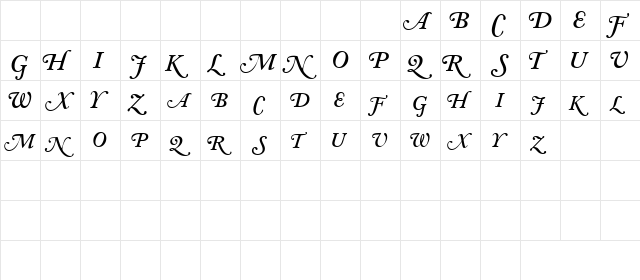
CaslonSwashSCapsSSK SemiBoldItalic Font Preview
CaslonSwashSCapsSSK SemiBoldItalic
Design Context for CaslonSwashSCapsSSK Typeface
CaslonSwashSCapsSSK brings a calligraphic fluidity to the page — its connecting strokes and expressive curves give it an unmistakably human quality. Its bold stroke weight gives it real presence on the page.
Font Pairing: Combine CaslonSwashSCapsSSK with a simple geometric sans for maximum contrast — the tension between flowing curves and clean structure is a classic typographic pairing.
Pro Tip: Use CaslonSwashSCapsSSK for short runs of text — names, titles, or taglines. Extended body copy in script faces tires the eye quickly.